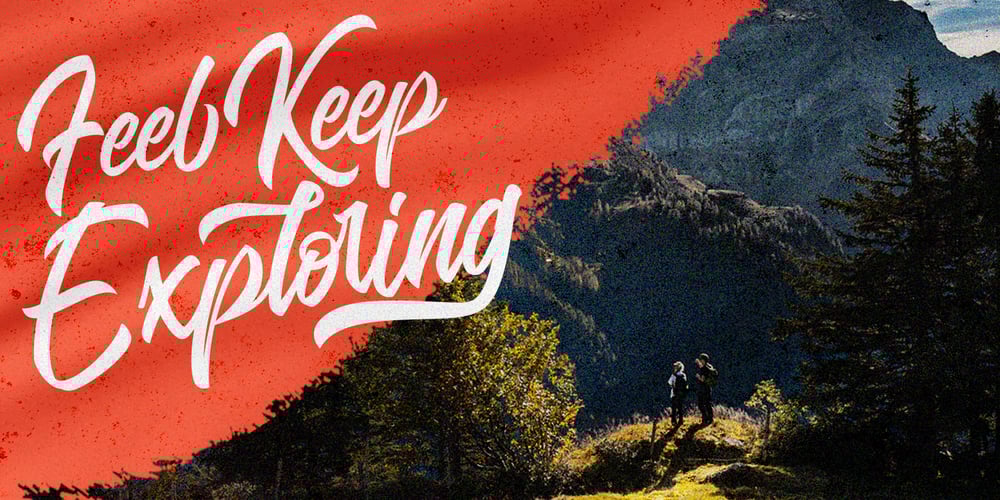
Blangkon Script Font Family was designed by Arif Dwi and published by Kotak Kuning Studio. Blangkon Script contains 1 styles and family package options. Blangkon Script is a bold modern script and combination with Hand Lettering style which gives more personal touch and makes the font looks being customized. This font is suitable to use as a logotype, product designs, label, watermark, social media posts, apparel, invitation, signboard, sport club, motor / car, special events or anything that need handwriting taste. What’s Included : – The ton of glyphs (include Uppercase, Lowercase, Numerals & Punctuations, Ligature, Alternate, and Swashes) – Works on PC & Mac – Simple installations – Accessible in the Adobe Illustrator, Adobe Photoshop, Adobe InDesign, even work on Microsoft Word. – PUA Encoded Characters – Fully accessible without additional design software. – Fonts include Multilingual Support for: Afrikaans, Albanian, Danish, Dutch, Estonian, Finnish, German, Icelandic, Italian, Norwegian, Portugese, Spanisch, Swedish, Zulu We hope you enjoy the font, please feel free to comment if you have any thoughts or feedback. Or simply send me a PM or email me at kotakkuningstudio@gmail.com. Thanks for purchasing and have fun!